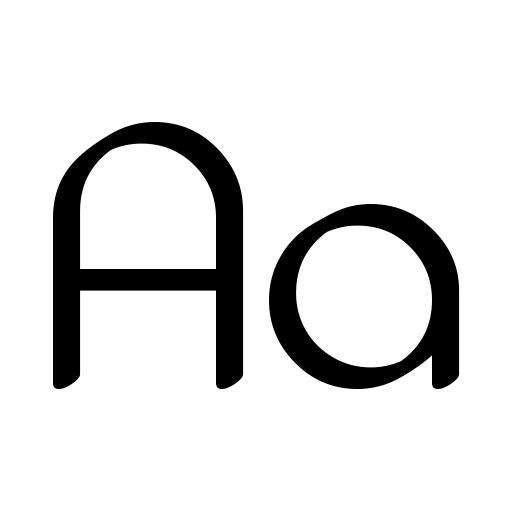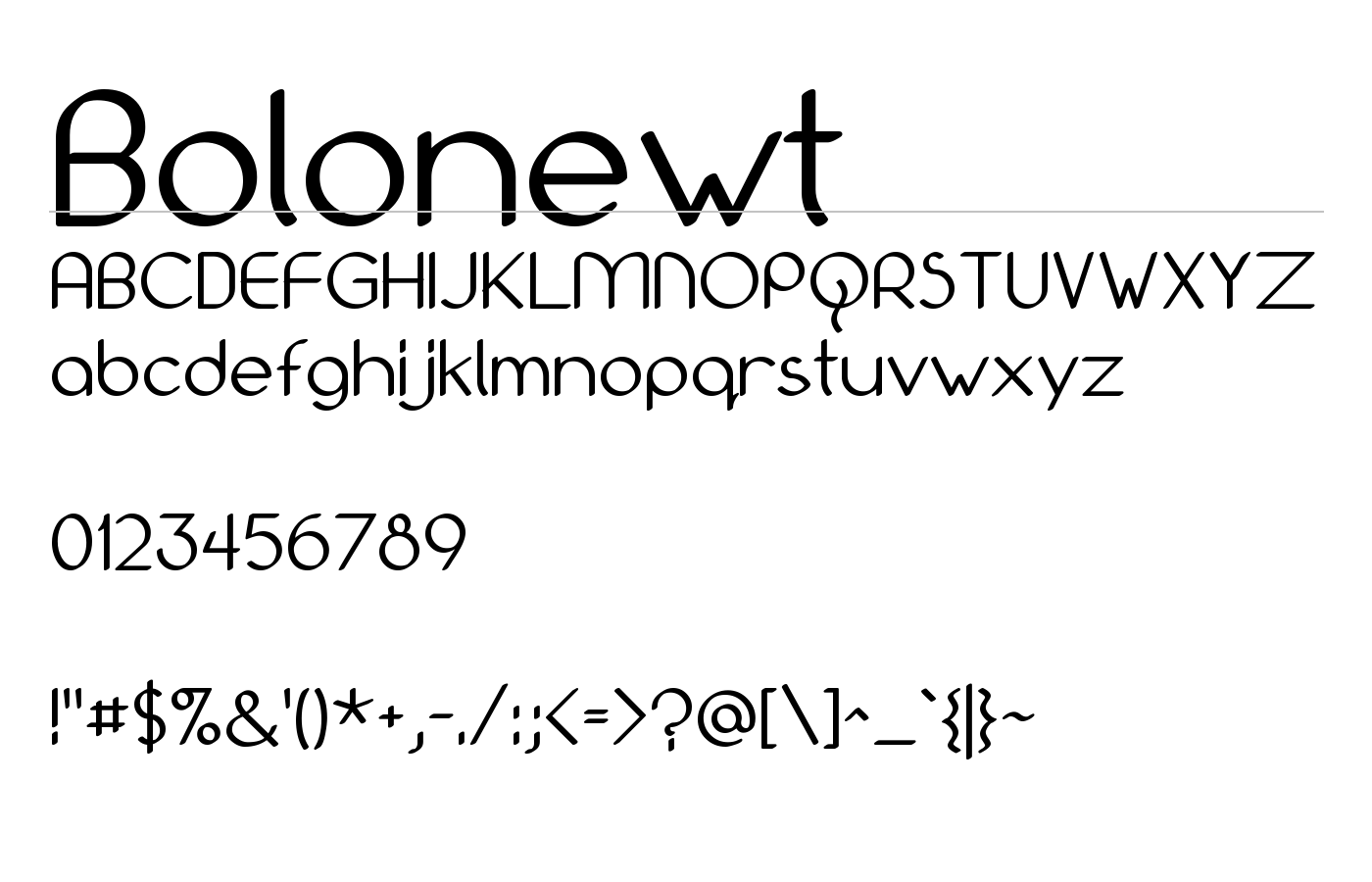
Bolonewt is a sleek, modern sans serif font characterized by its thin, consistent stroke weight and narrow, slightly condensed letterforms, giving it an elegant yet futuristic vibe. Its unique letter shapes and subtle curves create a distinctive, playful personality ideal for contemporary branding, editorial headlines, and stylish logos. This font works well where clarity and a touch of modern sophistication are needed, especially in creative and design-forward contexts.
Bolonewt Font